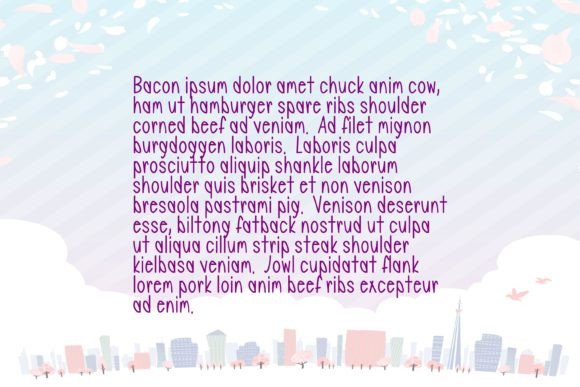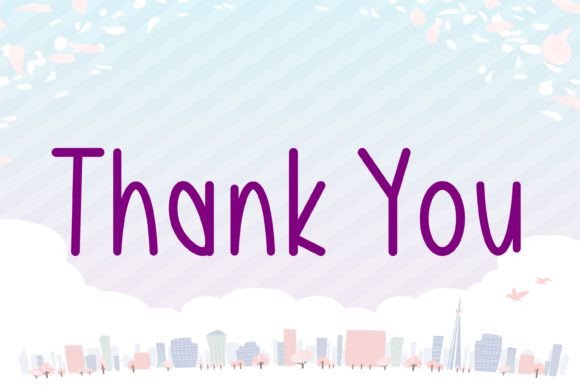
Introducing Behnoosh Font: The Perfect Handwritten Companion for Your Design Projects
Are you on the hunt for a font that can add a touch of warmth and personality to your designs? Look no further than Behnoosh Font! This simple yet friendly handwritten font is the perfect companion for designers and crafters looking to infuse their projects with a dash of whimsy and quirkiness. In this article, we’ll dive into the world of Behnoosh Font, exploring its features, uses, and benefits, and why it’s become a go-to choice for creatives.
The Charm of Behnoosh Font
Behnoosh Font is a beautifully crafted handwritten font that exudes a sense of friendliness and approachability. Its simple, flowing lines and rounded edges give it a soft, gentle feel that’s perfect for designs that require a personal touch. This font is not just a collection of letters; it’s an expression of creativity and playfulness, making it an excellent choice for designers who want to add a bit of personality to their work.
What Makes Behnoosh Font Stand Out?
- Whimsical and Quirky: Behnoosh Font has a unique charm that sets it apart from more traditional fonts. Its whimsical and quirky nature makes it perfect for designs that require a bit of flair.
- Versatile: This font is incredibly versatile and can be used for a wide range of projects, from logos and wedding invitations to quotes, advertisements, and more.
- Easy to Read: Despite its playful nature, Behnoosh Font is remarkably easy to read, making it an excellent choice for body text and headings.
- Highly Legible: The font’s clear and simple design ensures that it’s highly legible, even at smaller sizes.
Behnoosh Font is a versatile typeface that can be used in a multitude of design projects. Here are some ideas to get you started:
- Logos: Create a memorable brand identity with Behnoosh Font. Its friendly and approachable nature makes it perfect for logos that require a personal touch.
- Wedding Invitations: Add a touch of romance and whimsy to your wedding invitations with Behnoosh Font. Its elegant yet playful design is sure to impress.
- Quotes and Posters: Use Behnoosh Font to create inspiring quotes and posters that are sure to grab attention.
- Advertisements: Add a bit of personality to your advertisements with Behnoosh Font. Its quirky nature makes it perfect for brands that want to stand out.
- Print and Magazines: Use Behnoosh Font in your print designs, such as magazines, brochures, and flyers, to add a touch of warmth and personality.
Why Designers and Crafters Love Behnoosh Font
Behnoosh Font has quickly become a favorite among designers and crafters, and for good reason. Here are some reasons why:
- Easy to Use: Behnoosh Font is incredibly easy to use, even for those who are new to design. Its simple and intuitive design makes it easy to get started.
- High-Quality: This font is of exceptionally high quality, with clear and crisp lines that ensure it looks great in any design.
- Unique: Behnoosh Font is a unique and original typeface that will set your designs apart from the crowd.
| Font Name | Behnoosh Font |
| Author | Woracado |
In conclusion, Behnoosh Font is a simple yet powerful handwritten font that’s perfect for designers and crafters looking to add a touch of personality to their designs. Its whimsical and quirky nature, combined with its versatility and ease of use, make it an excellent choice for a wide range of projects. Whether you’re creating logos, wedding invitations, quotes, or advertisements, Behnoosh Font is sure to brighten up your designs and leave a lasting impression.